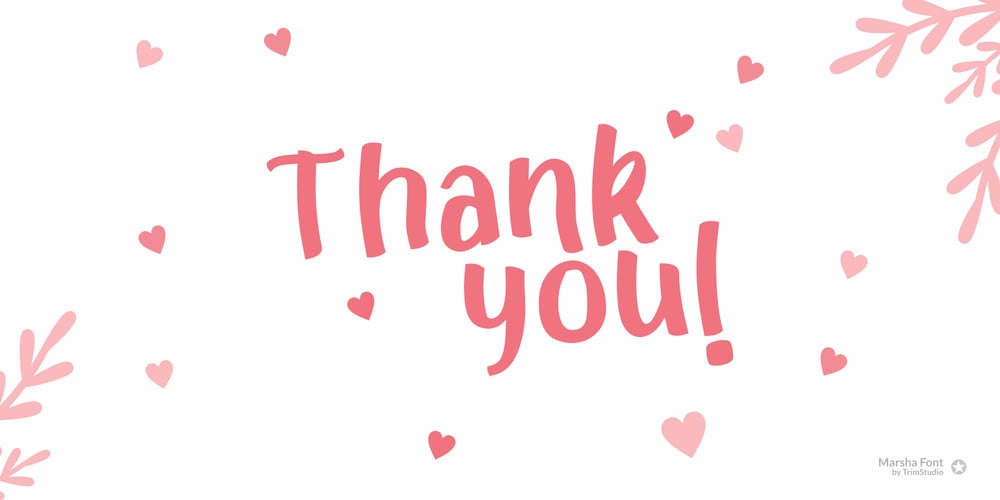
Marsha
Marsha font
Marsha Font Family was designed by Deri Kurnia and published by Trim Studio. Marsha contains 1 styles and family package options. Marsha is a cheerful font that gives your design happiness and love. This font is perfect for showing your affection. If you have any questions or problems, feel free to send us a private message, and please rate us if you like 🙂 Hope you enjoy the font! Thank you